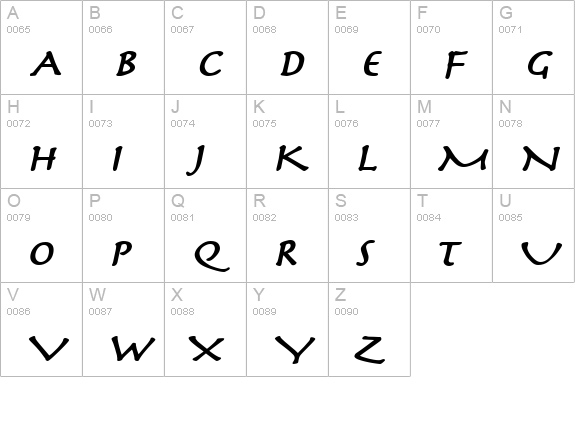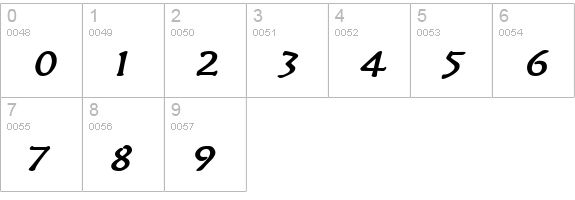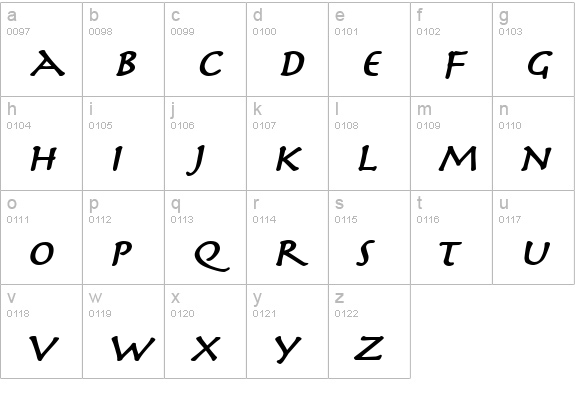
Mythology Wide BoldItalic is a distinctive, extended-width variant in the Mythology typeface family \xE2\x80\x94 well suited to design and typography projects.
Introducing Mythology Wide BoldItalic, a captivating and enchanting font inspired by ancient myths and legends. Its strong and distinctive design exudes a sense of power and mystery, making it perfect for adding a touch of magic to your projects. The bold and italic styling of this font gives it a unique and dynamic appearance, making it stand out in any design. Mythology Wide BoldItalic is not only visually striking but also versatile, suitable for a wide range of design projects including logos, posters, branding, and more. Its mystical aura will draw in viewers and leave a lasting impression. The best part? Mythology Wide BoldItalic is available for free download at FontsMarket.com. Now you can easily access this stunning font and bring a touch of ancient magic to your creations. Embrace the power of Mythology Wide BoldItalic and let your designs transcend the ordinary.